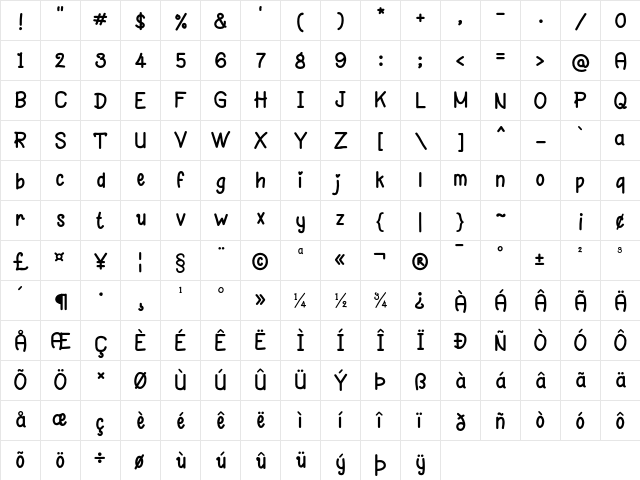
Hello Day Regular
| Designer | JozGandoz |
Design Context for Hello Day Typeface
Hello Day is a composed and adaptable typeface that performs quietly and consistently across a wide range of design contexts.